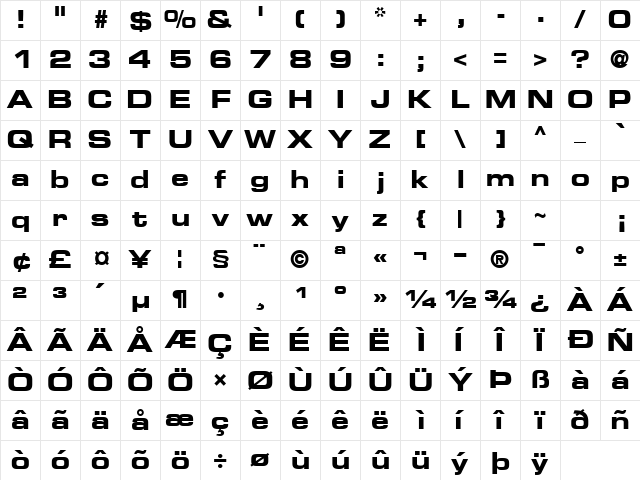
PalindromeExpandedSSK Bold
Design Context for PalindromeExpandedSSK
PalindromeExpandedSSK is a composed and adaptable typeface that performs quietly and consistently across a wide range of design contexts. Its bold stroke weight gives it real presence on the page.